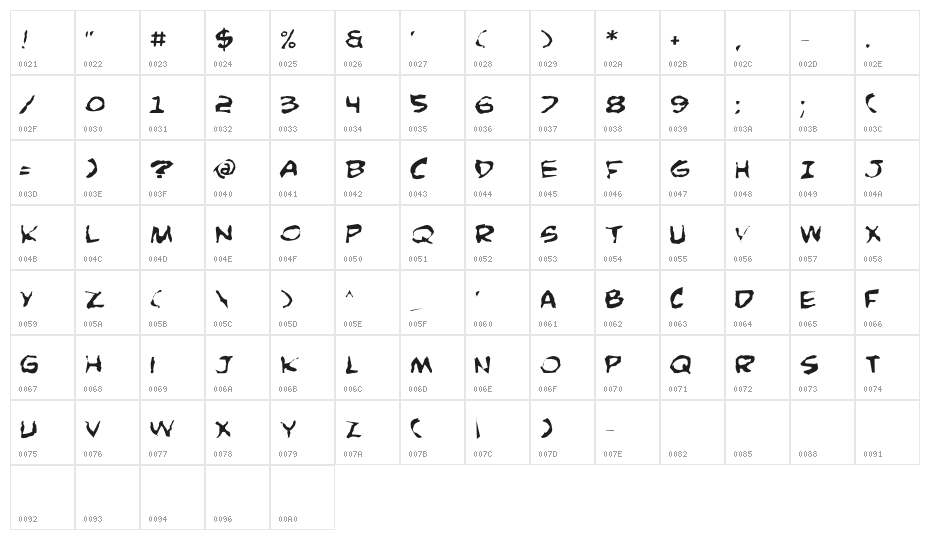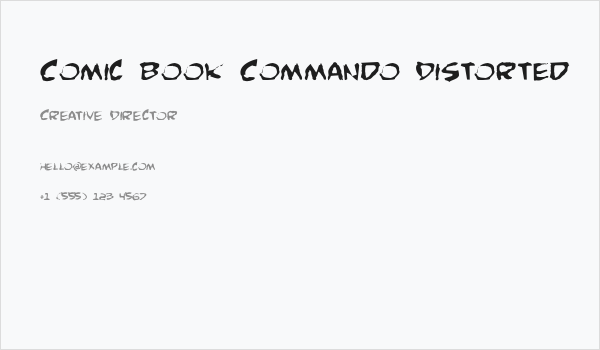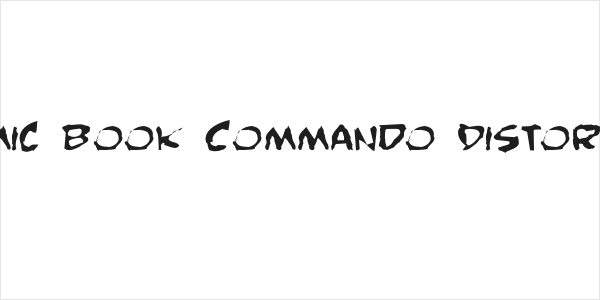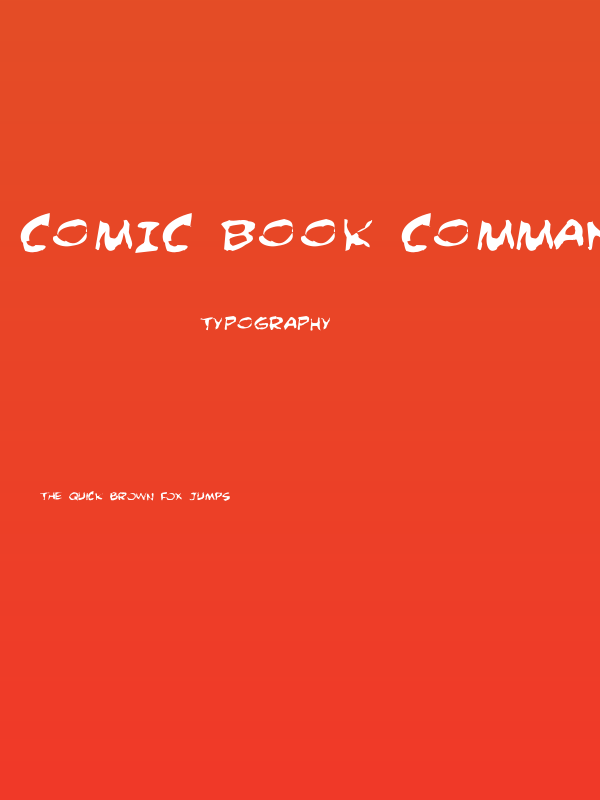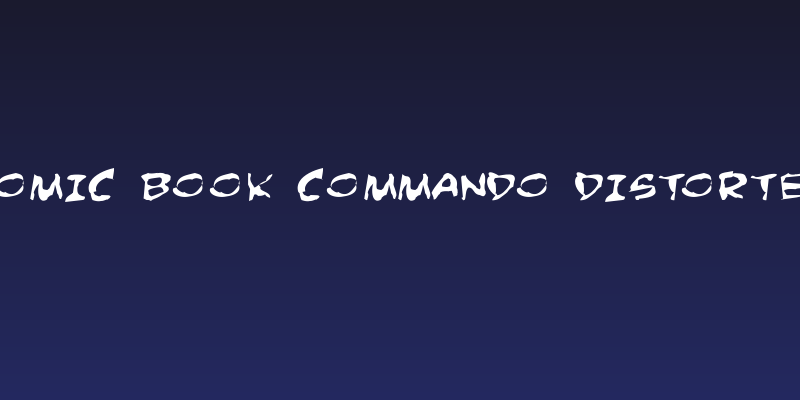
Comic Book Commando Distorted Font
Comic Book Commando Distorted Description
This font features a bold, dynamic style with a distinctly distorted and rugged appearance. The characters are irregular and jagged, giving off an energetic and rebellious vibe. The strokes are thick and uneven, creating a sense of movement and intensity. This font is reminiscent of comic book lettering, with a playful yet aggressive edge. The uppercase and lowercase letters maintain a consistent style, while the numbers and special characters follow the same distorted theme, adding to the overall cohesive look.
Overall StyleModern, Decorative
Proposed ProjectsIdeal for comic book titles, action-themed posters, edgy branding, and graphic novels.